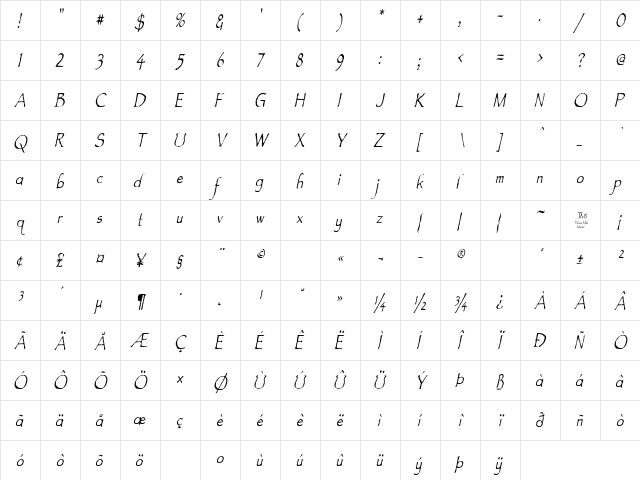
Feldicouth Compressed Italic Regular
Design Context for Feldicouth Compressed Italic Typeface
Feldicouth Compressed Italic is a composed and adaptable typeface that performs quietly and consistently across a wide range of design contexts. The slanted form adds forward momentum and visual energy.
Pro Tip: Try Feldicouth Compressed Italic for annotation and caption copy alongside an upright companion — the contrast in angle creates a dynamic but ordered typographic system.